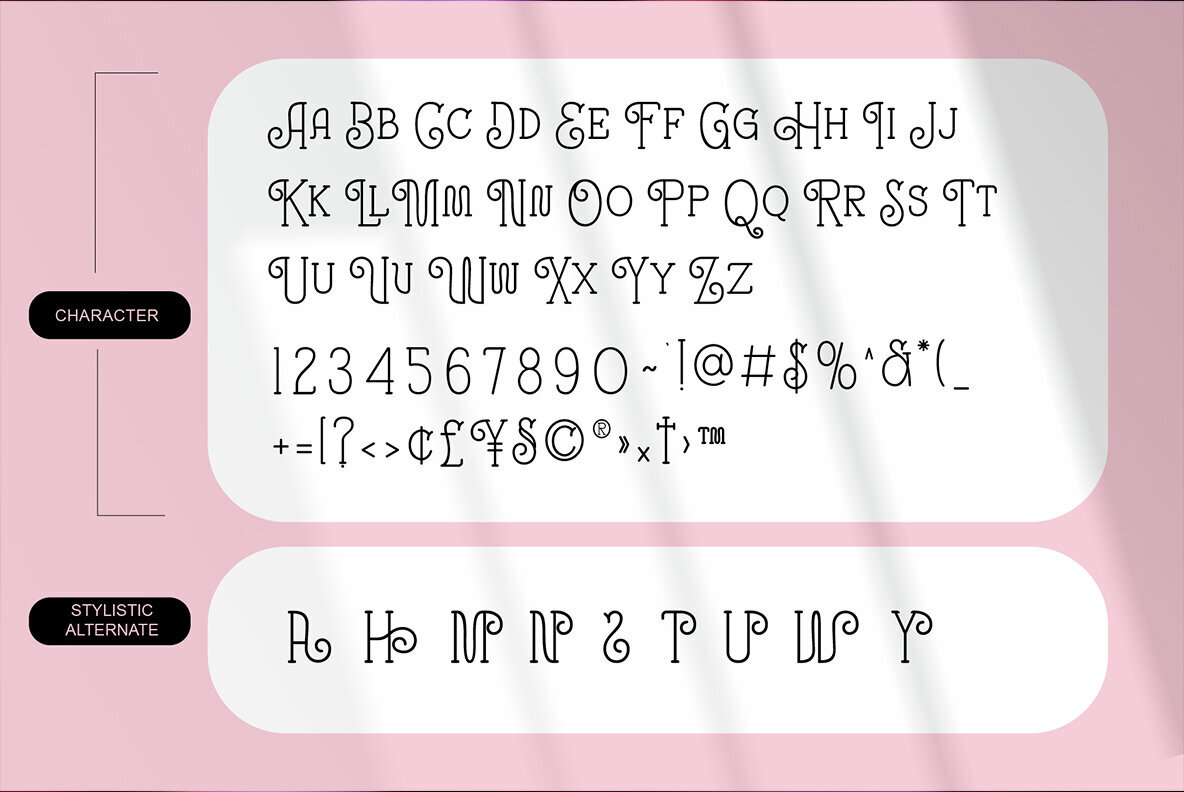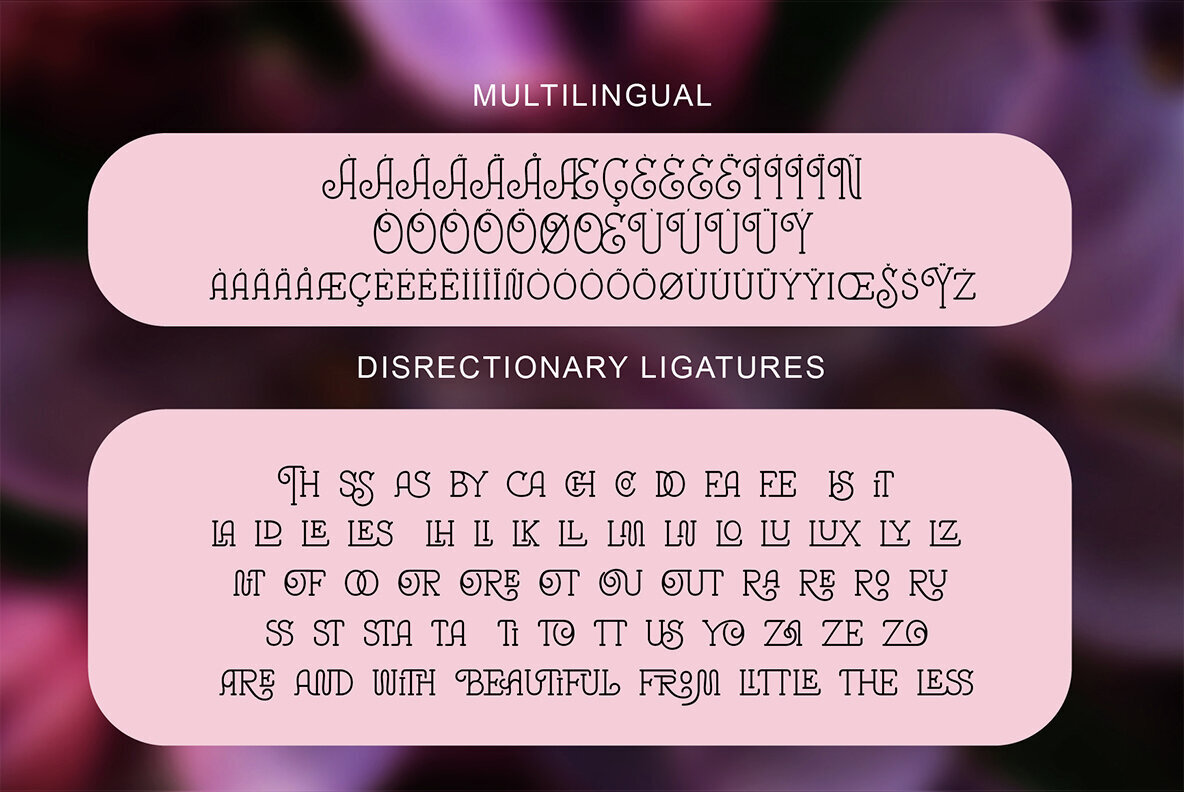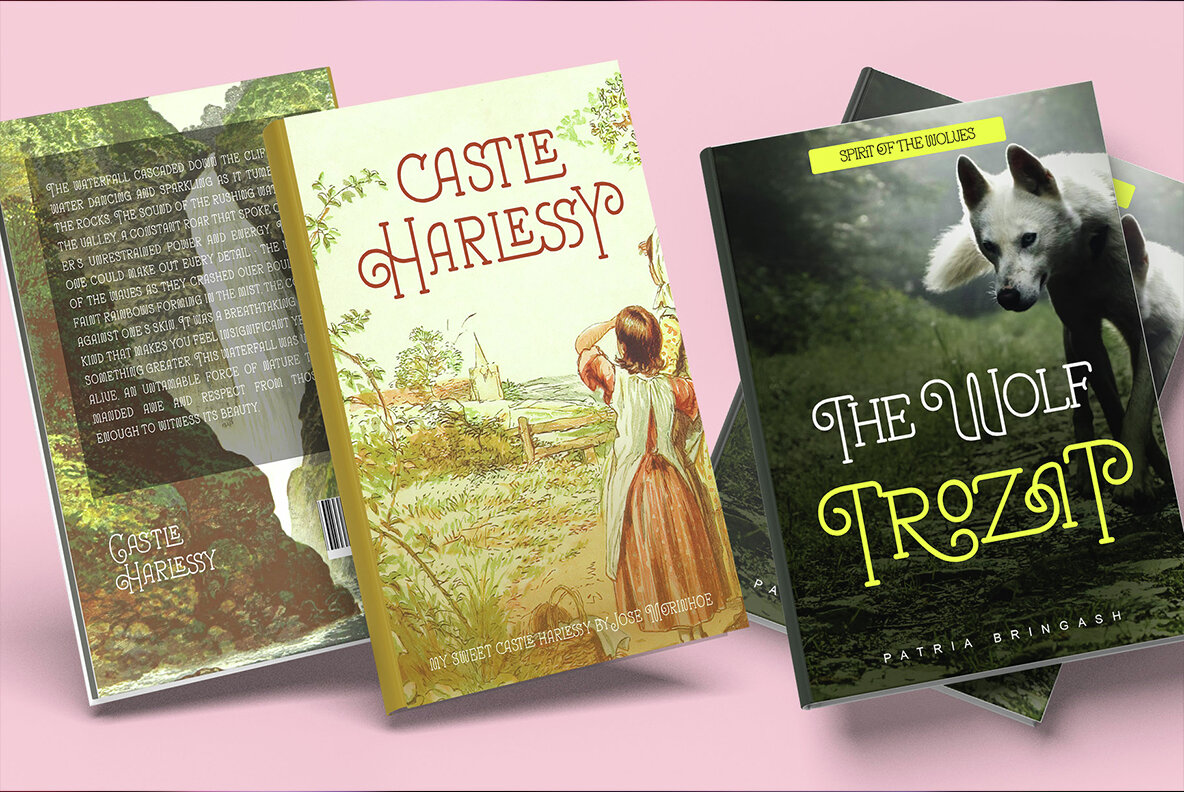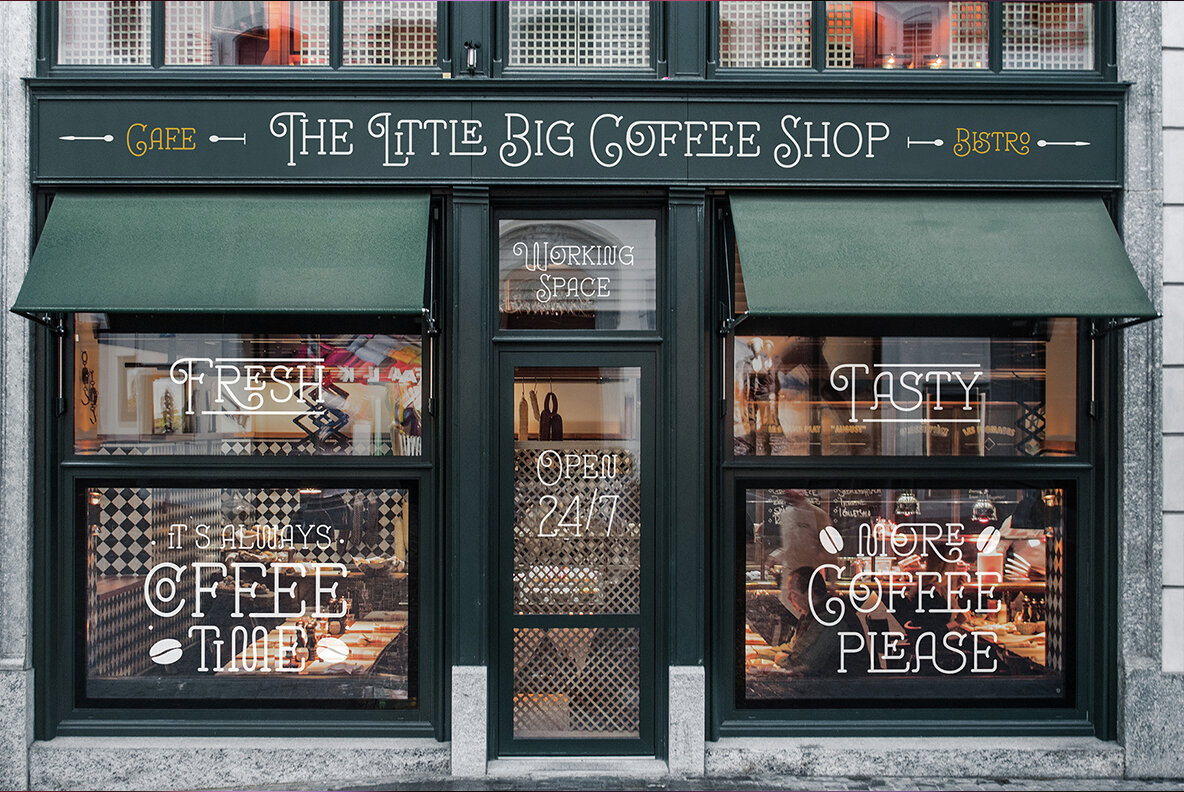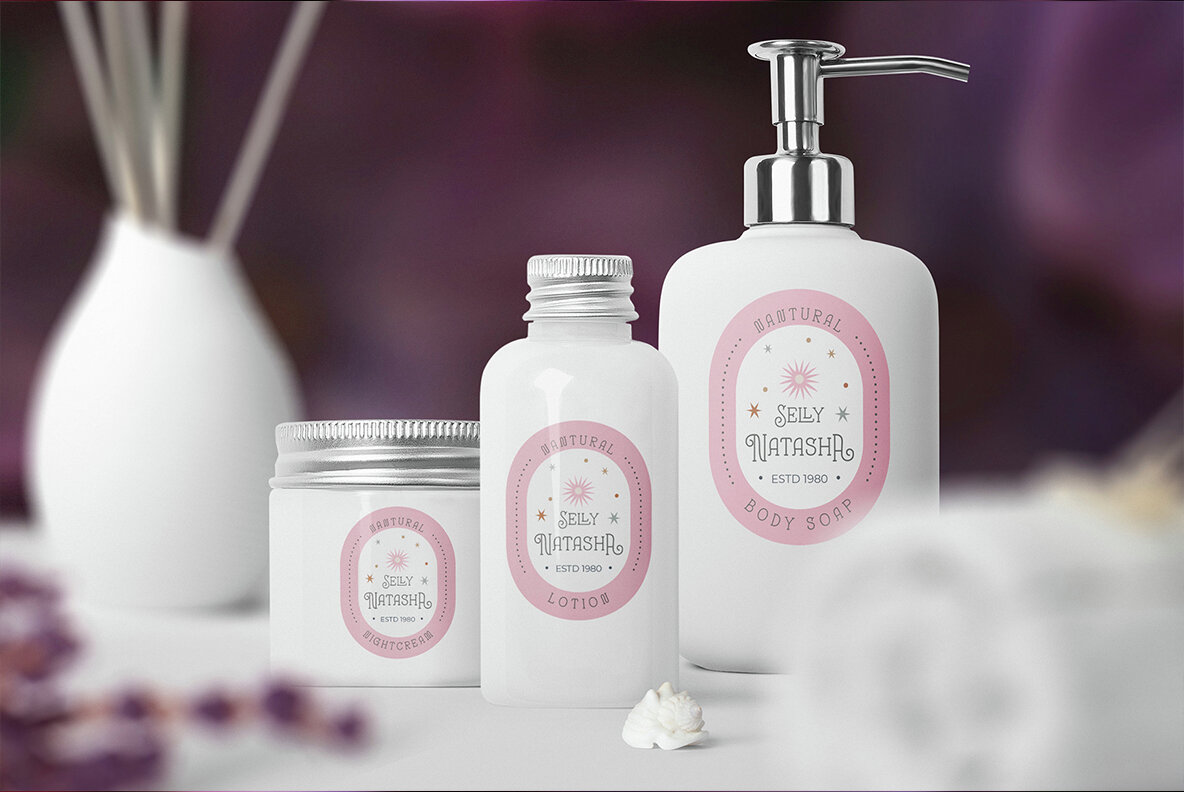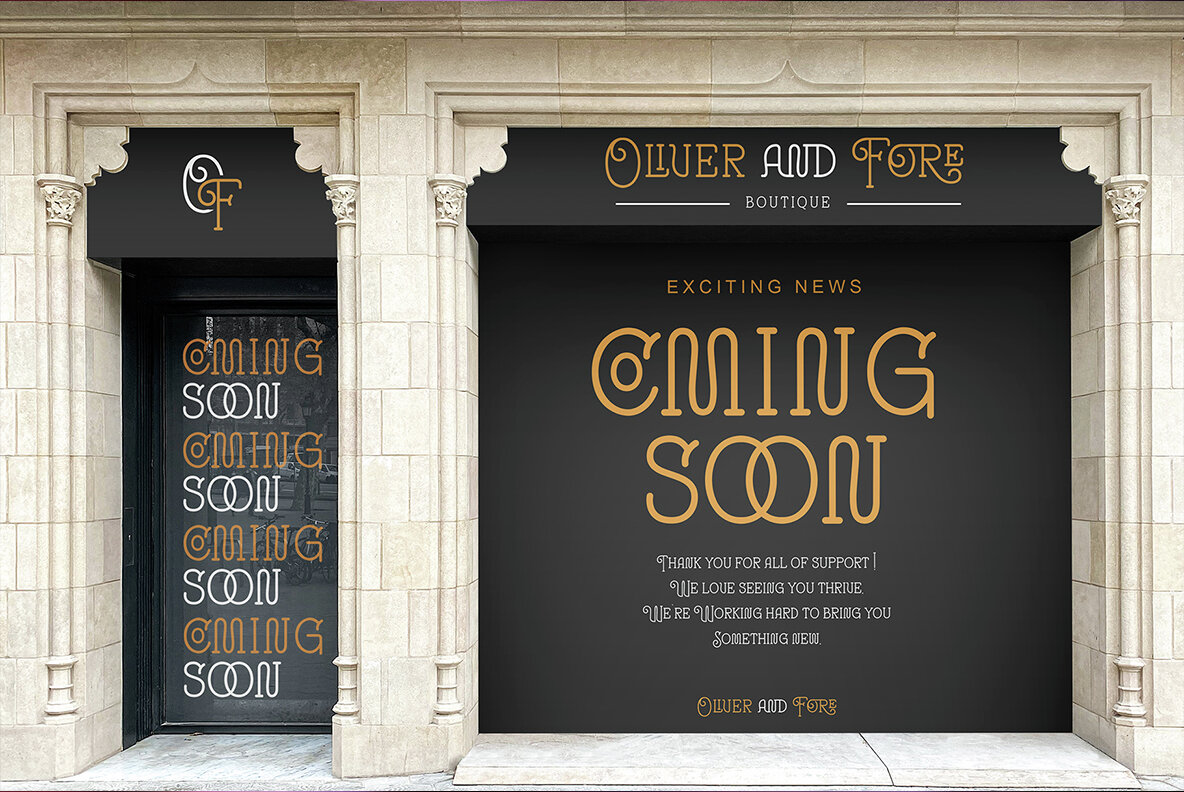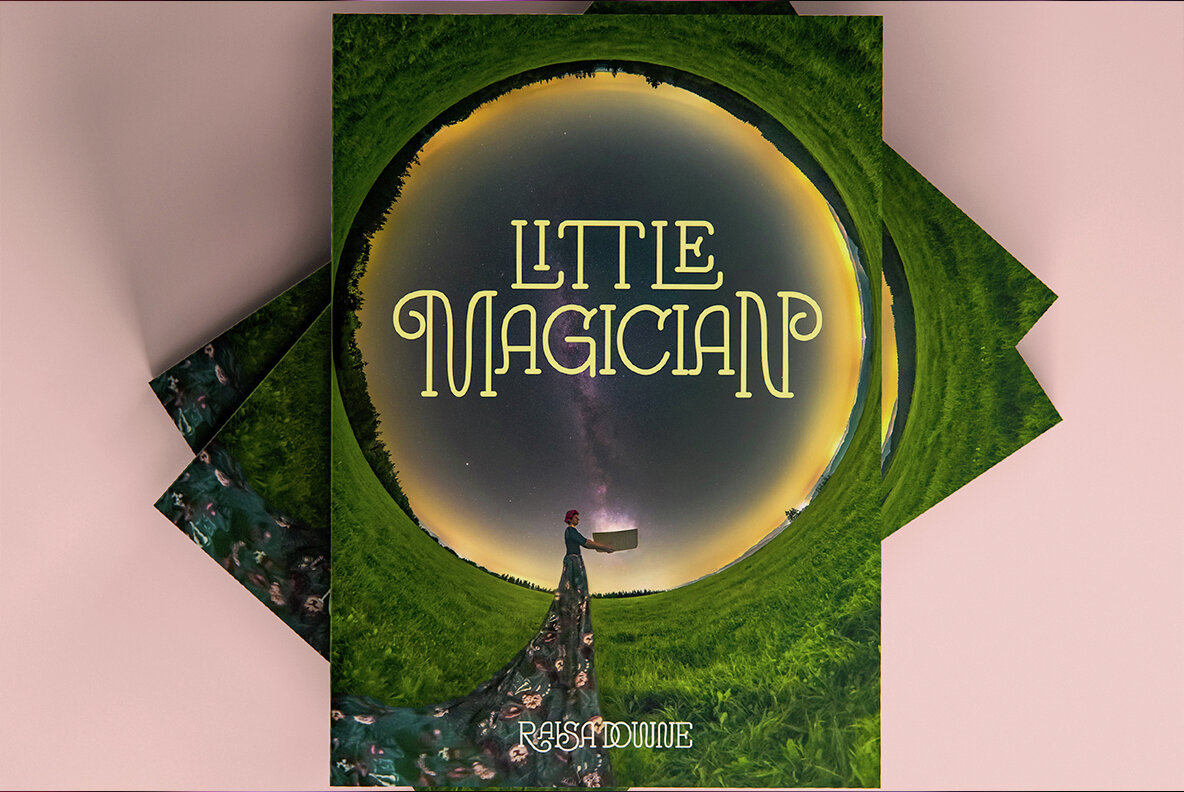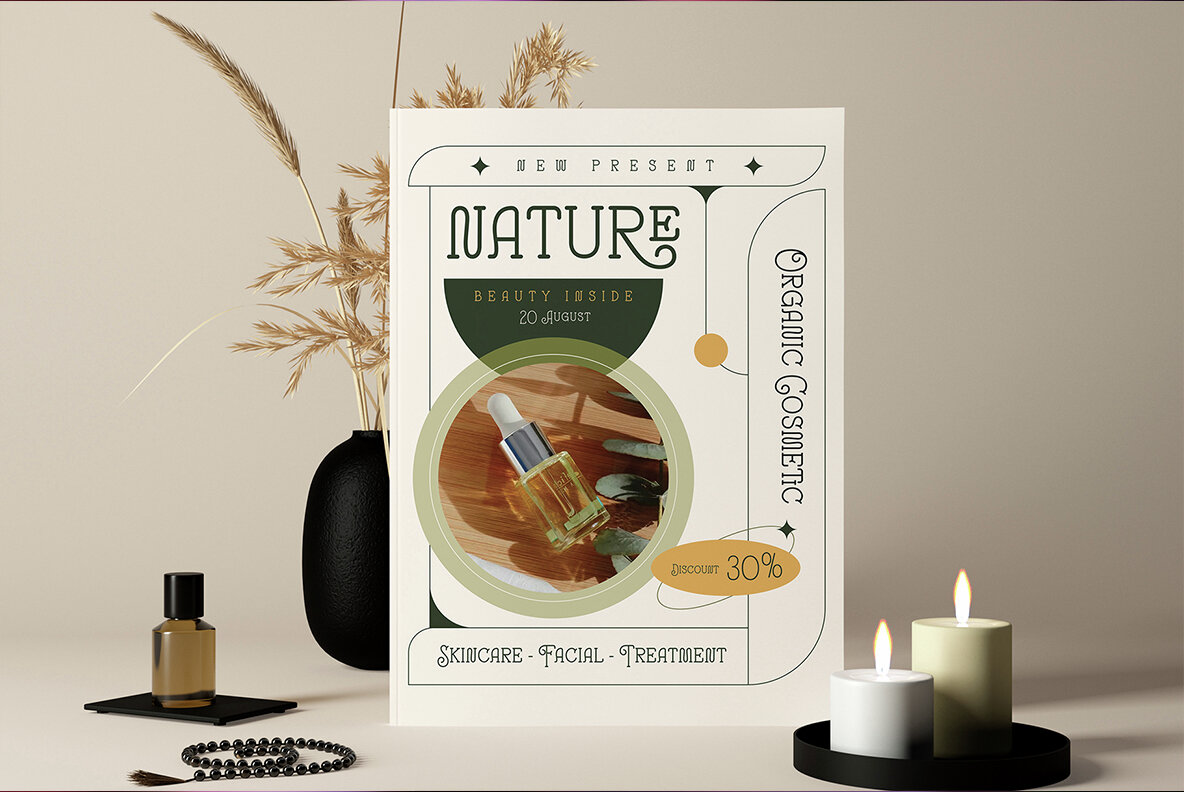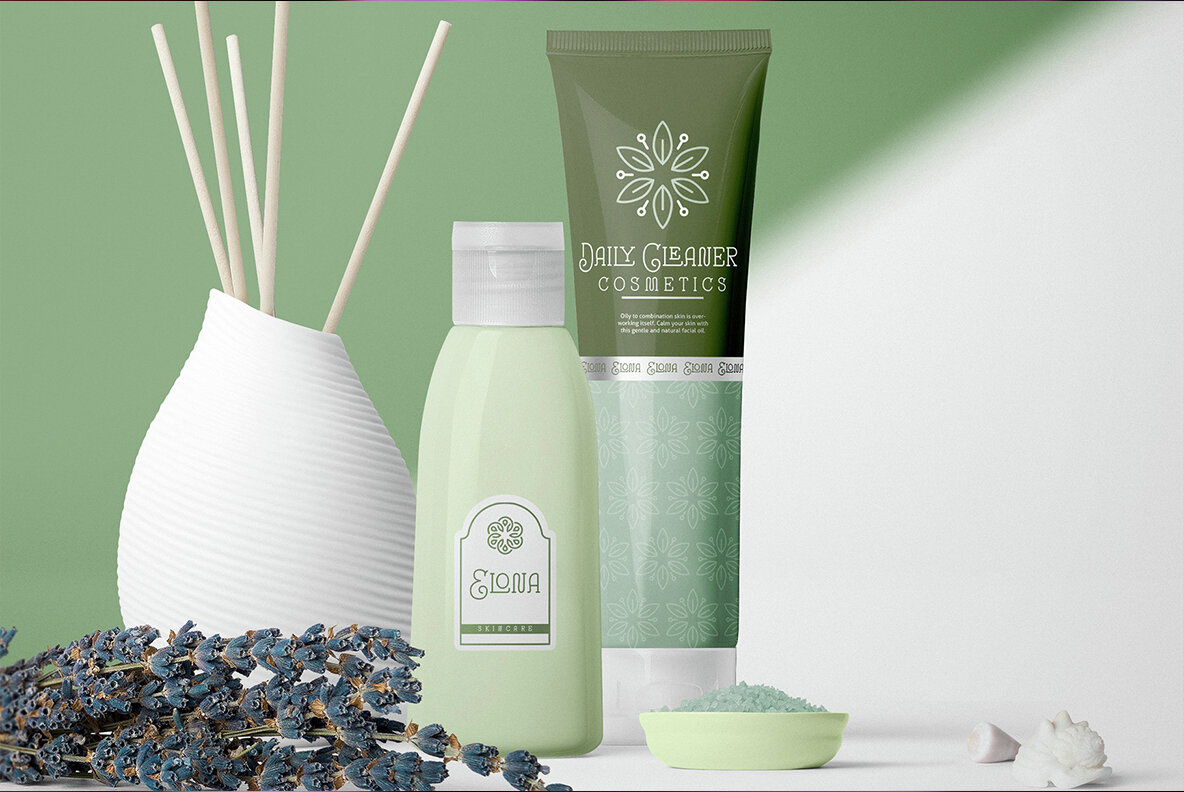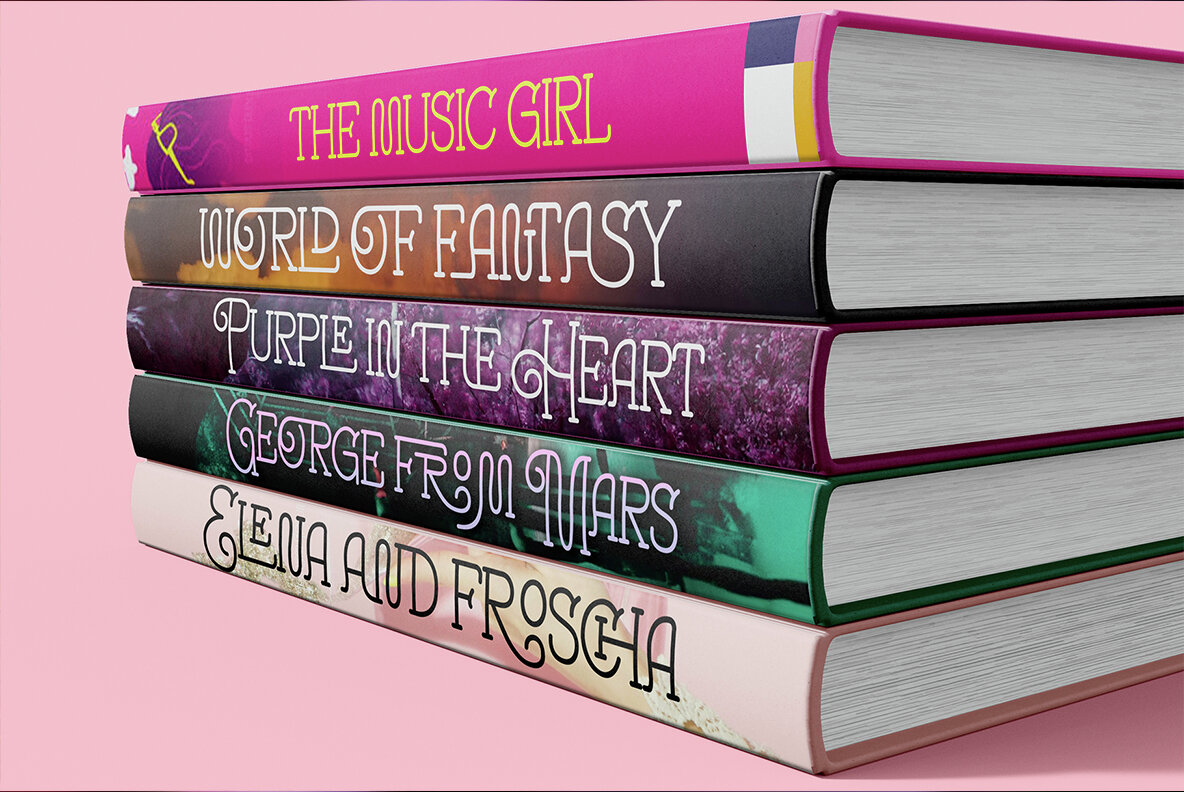
Alurea Font
Alurea Regular
Alurea is a distinctly feminine and girly font, characterized by its delicate serifs and elegant design. The unique ligatures, graceful lines, and curves evoke a sense of beauty and romance, making it ideal for love letters, novel covers, magazines, coffee shops, wedding invitations, and feminine branding. With delicate and intimate forms, Alurea whispers sweet nothings, embodying a sensual allure and charm that dances effortlessly across the page. It's a celebration of beauty, charm, and tenderness, perfect for creating a soft, romantic air in any design.Alurea: A Graceful and Feminine Script